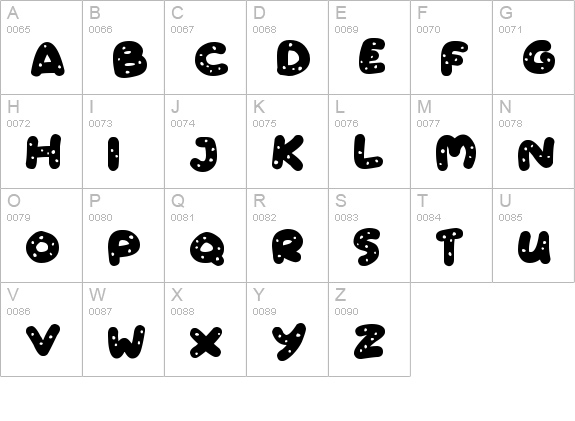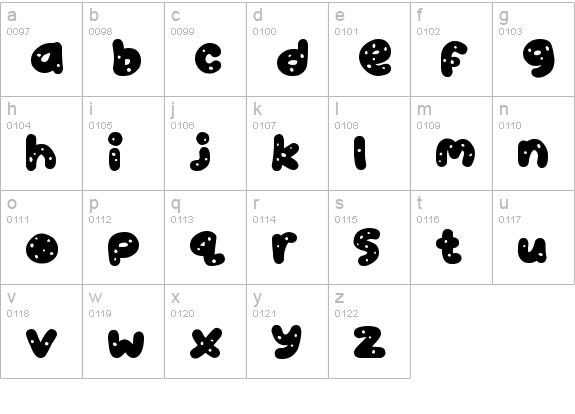
Cookies Font Details
Cookies is a donationware font in the Fancy > Cartoon category, designed by Darrell Flood. It has been downloaded 19 times and is available for Windows, Mac and Linux.
Introducing Cookies font, a delightful and charming typeface designed to add a touch of sweetness to your projects. With its playful curves and whimsical appearance, Cookies font is perfect for creating eye-catching designs that stand out. Whether you're designing a festive invitation, a fun poster, or a cheerful greeting card, Cookies font will bring a smile to your audience's faces.